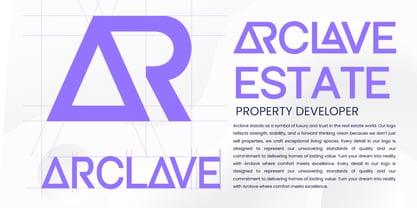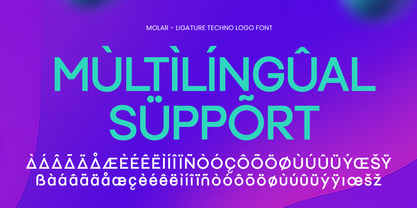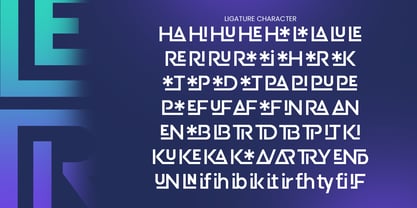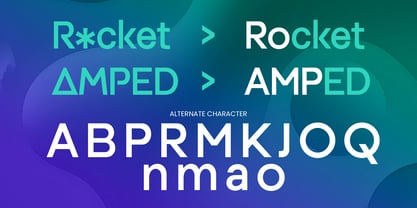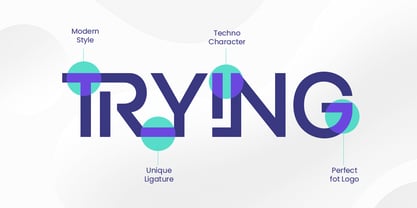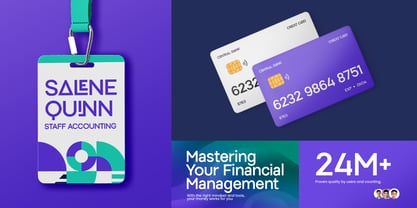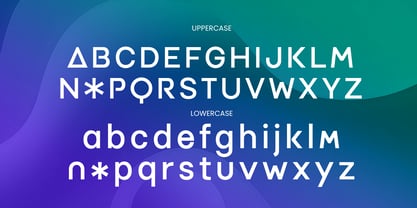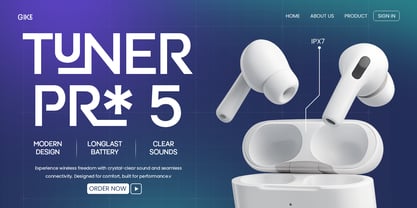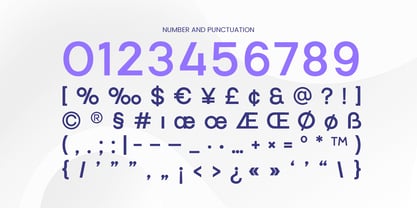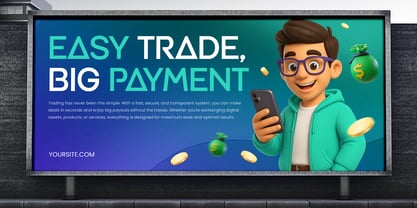
Molar is a sleek ligature techno font built for cutting-edge branding and futuristic visual identities. With unique letter connections and bold geometric styling, Molar is perfect for tech startups, app logos, digital products, and sci-fi visuals. Its modern aesthetic blends clean minimalism with high-tech energy, making it adaptable across user interfaces, packaging, and corporate design systems.
Whether you're building a brand in AI, crypto, or software, Molar delivers a sharp, confident impression. Empower your brand with forward-thinking design using Molar — a font made for innovation and digital growth.
Molar – Ligature Techno Logo Font Features:
Modern techno style with smart ligature combinations
Available with Huge Alternate & Ligature
Collections Ideal for tech, apps, startups, and futuristic branding
Punctuation, numbers, and symbols included
Uppercase and lowercase letters
OpenType features with alternate characters
Multilingual support for Afrikaans, Albanian, Asu, Basque, Bemba, Bena, Breton, Chiga, Cornish, Dutch, English, Estonian, Filipino, Finnish, Friulian, Galician, German, Gusii, Indonesian, Irish, Italian, Kabuverdianu, Kalenjin, Kinyarwanda, Luo, Luxembourgish, Luyia, Machame, Makhuwa-Meetto, Makonde, Malagasy, Manx, Morisyen, North Ndebele, Nyankole, Oromo, Portuguese, Quechua, Romansh, Rombo, Rundi, Rwa, Samburu, Sango, Sangu, Scottish Gaelic, Sena, Shambala, Shona, Soga, Somali, Spanish, Swahili, Swedish, Swiss, and more.